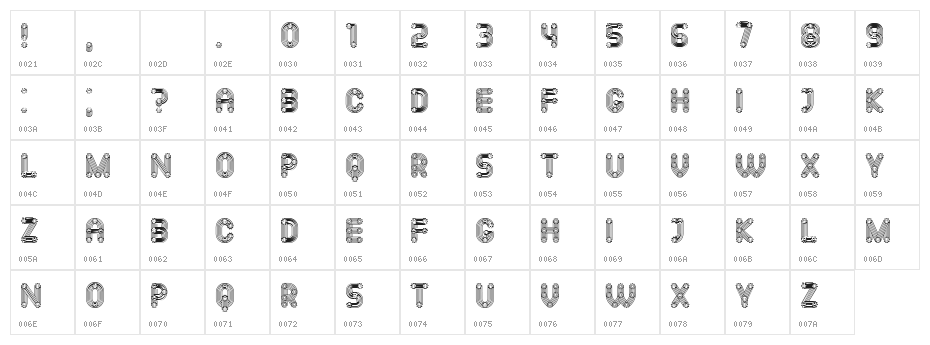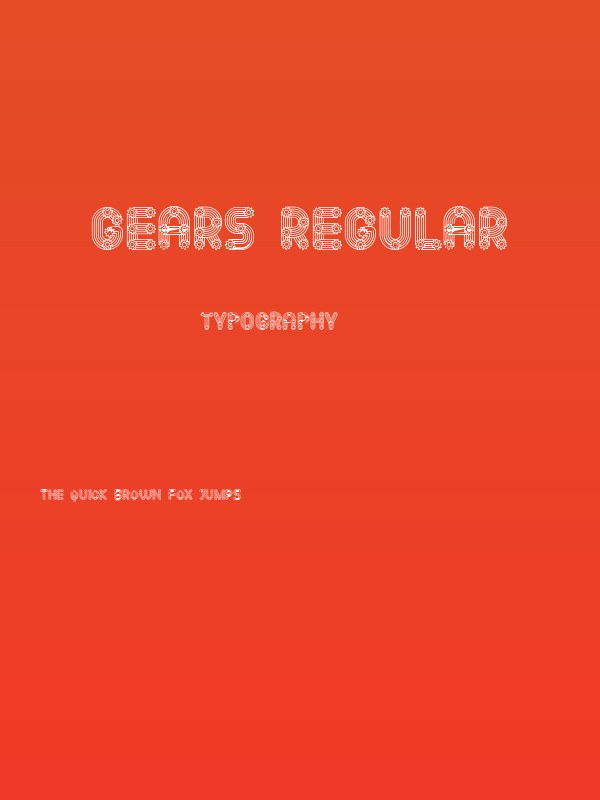
Gears Regular Font
| Anwendungsfall | Logos, Posters, Themed Events |
| Vorgeschlagene Projekte | Ideal for steampunk-themed designs, industrial branding, creative posters, and unique logo designs. |